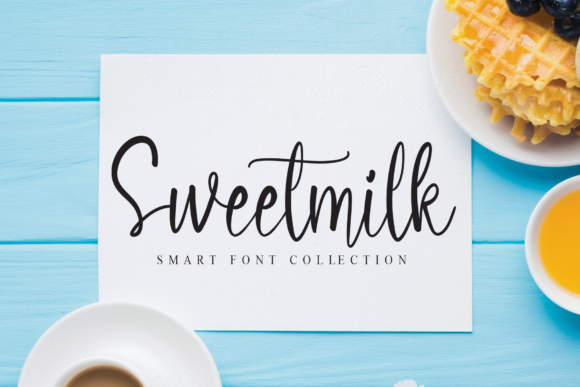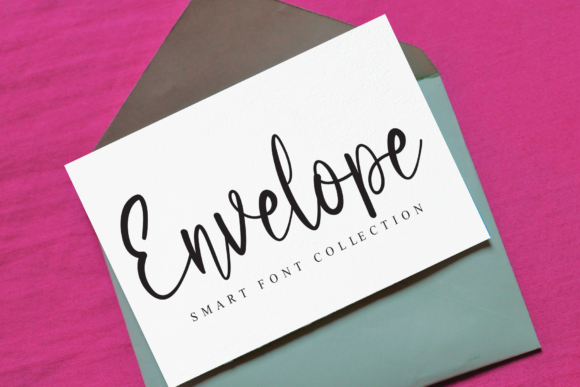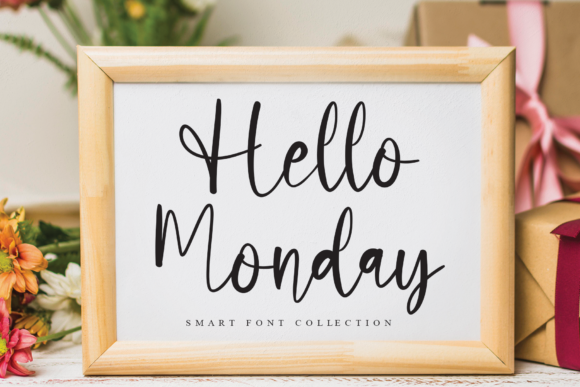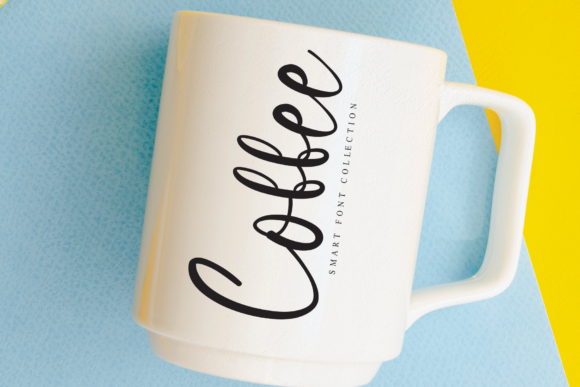
Coffeelatte Font: Elevate Your Designs with Elegance
Are you a designer, crafty enthusiast, or simply someone who appreciates beautiful typography? Look no further than the stunning Coffeelatte font. This elegant handwritten font is sure to add a touch of sophistication to your creative projects, making them truly come alive. In this article, we’ll dive into the world of Coffeelatte font, exploring its features, uses, and benefits, as well as provide tips on how to make the most of this gorgeous typeface.
The Charm of Coffeelatte Font
Coffeelatte font is a masterpiece of handwritten typography, boasting a unique blend of elegance and playfulness. Its flowing lines, delicate curves, and subtle imperfections evoke a sense of warmth and personality, making it perfect for a wide range of design applications. Whether you’re working on a logo, branding materials, invitations, or social media graphics, Coffeelatte font is sure to add a touch of refinement and style.
Key Features of Coffeelatte Font
- Elegant Handwritten Style: Coffeelatte font features a beautiful, handwritten aesthetic that’s both sophisticated and approachable.
- Unique Character Set: With a wide range of characters, including uppercase and lowercase letters, numbers, and punctuation marks, Coffeelatte font offers endless possibilities for creative expression.
- High-Quality Design: Crafted with precision and attention to detail, Coffeelatte font is designed to deliver exceptional results in both digital and print formats.
Uses for Coffeelatte Font
Coffeelatte font is incredibly versatile, making it suitable for a variety of design projects, including:
- Logos and Branding: Create a lasting impression with a custom logo or branding materials that showcase your unique identity.
- Invitations and Stationery: Add a touch of elegance to your invitations, greeting cards, and stationery with Coffeelatte font.
- Social Media Graphics: Elevate your social media presence with eye-catching graphics, quotes, and promotional materials featuring Coffeelatte font.
- Packaging and Product Design: Stand out on store shelves with beautifully designed packaging and product labels that incorporate Coffeelatte font.
Tips for Using Coffeelatte Font
To get the most out of Coffeelatte font, follow these expert tips:
- Experiment with Colors: Pair Coffeelatte font with a range of colors to create unique and eye-catching combinations.
- Mix and Match Fonts: Combine Coffeelatte font with other typefaces to add contrast and visual interest to your designs.
- Play with Texture and Patterns: Add depth and texture to your designs by incorporating patterns, illustrations, or textures alongside Coffeelatte font.
Coffeelatte font is a true gem in the world of typography, offering a unique blend of elegance, playfulness, and sophistication. Whether you’re a seasoned designer or a crafty enthusiast, this beautiful handwritten font is sure to inspire your creativity and elevate your designs. With its versatility, high-quality design, and endless possibilities for creative expression, Coffeelatte font is an essential addition to any design toolkit. So why wait? Add Coffeelatte font to your collection today and watch your designs come alive!